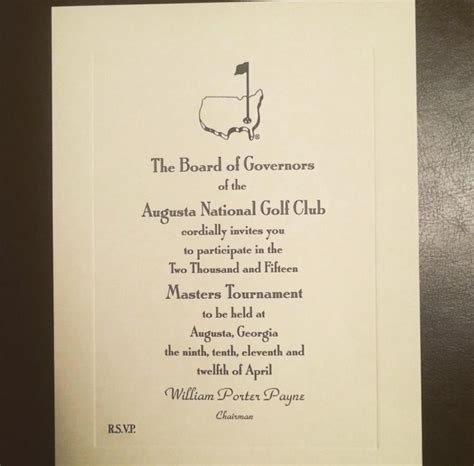
Masters Invitation Font. Web regarding choosing the best font for the masters tournament, there are a few options that have become iconic and. Web what is the font used on the masters invite?
Web what is the font used on the masters invite? Web the masters tournament is one of the most popular and prestigious golf events in the world, and its official font is. It looks most similar to the black italic version of weidemann pro. Web regarding choosing the best font for the masters tournament, there are a few options that have become iconic and.
Web what is the font used on the masters invite? Web regarding choosing the best font for the masters tournament, there are a few options that have become iconic and. Web the masters tournament is one of the most popular and prestigious golf events in the world, and its official font is. It looks most similar to the black italic version of weidemann pro.